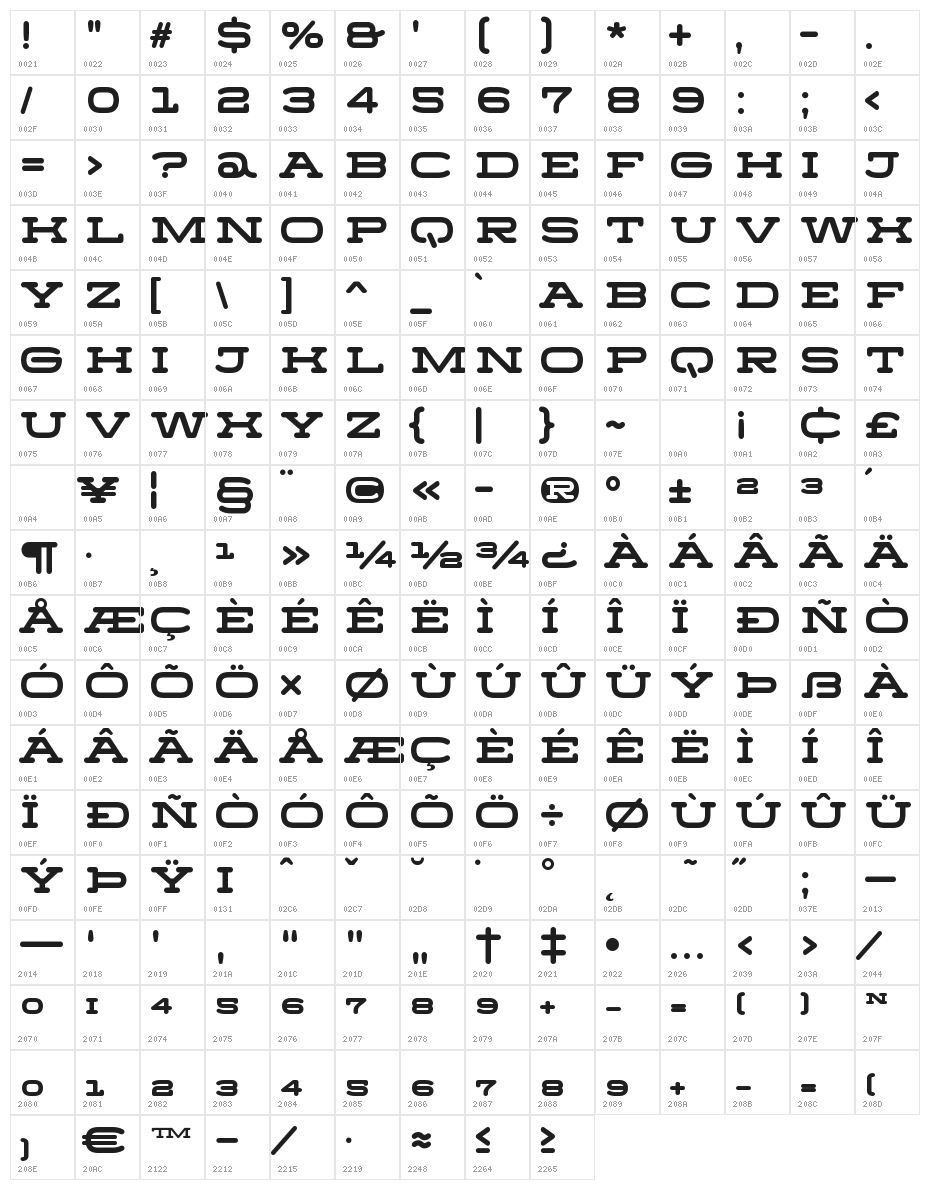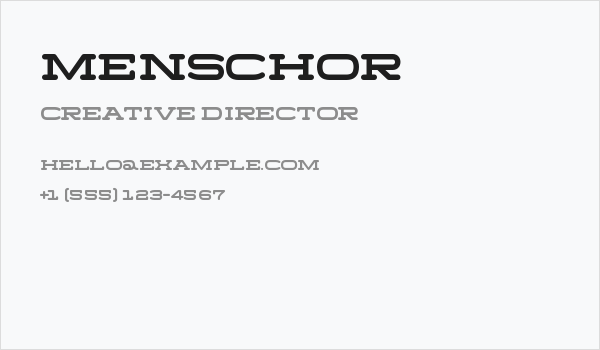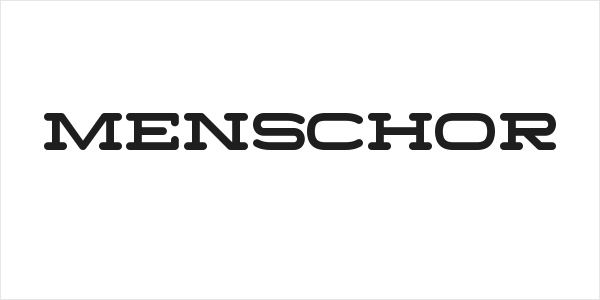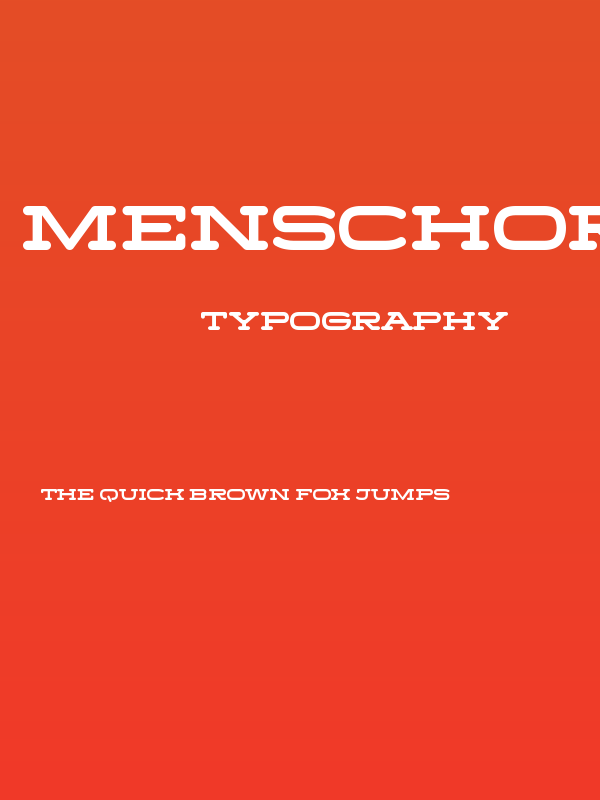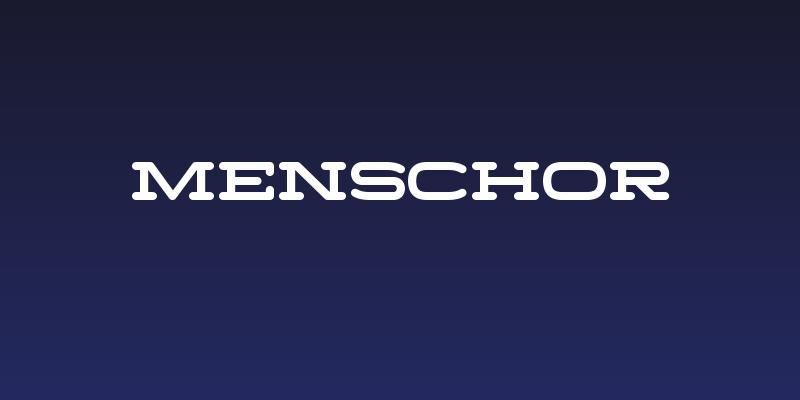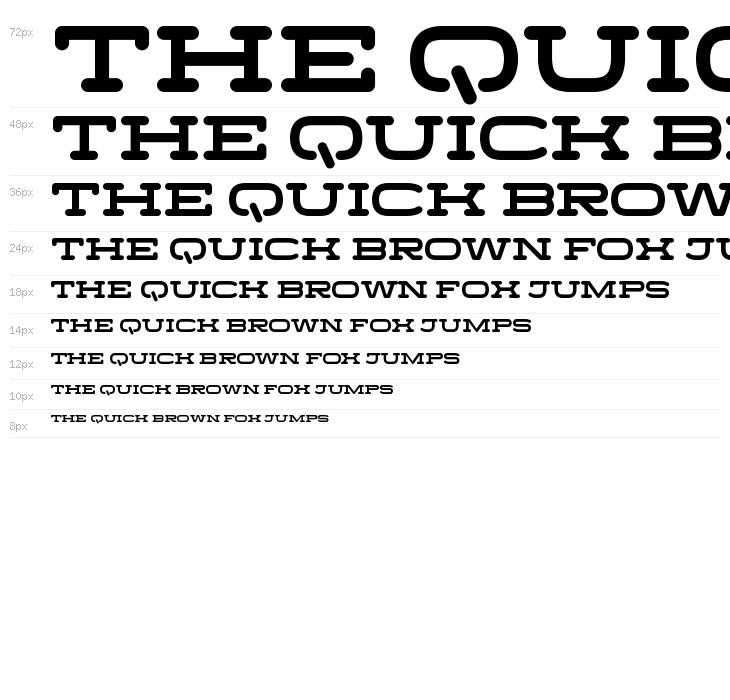
Menschor Font
Menschor Description
This font features a bold, geometric design with a modern twist. The uppercase letters are characterized by their uniform stroke width and slightly rounded edges, giving them a sturdy yet approachable appearance. The lowercase letters maintain the same geometric style, ensuring consistency across the typeface. The numerals are distinct and easily readable, with a similar boldness that matches the letters. Special characters are designed with the same attention to detail, ensuring they integrate seamlessly with the rest of the font. Overall, this typeface combines a modern aesthetic with a touch of retro charm, making it versatile for various design applications.